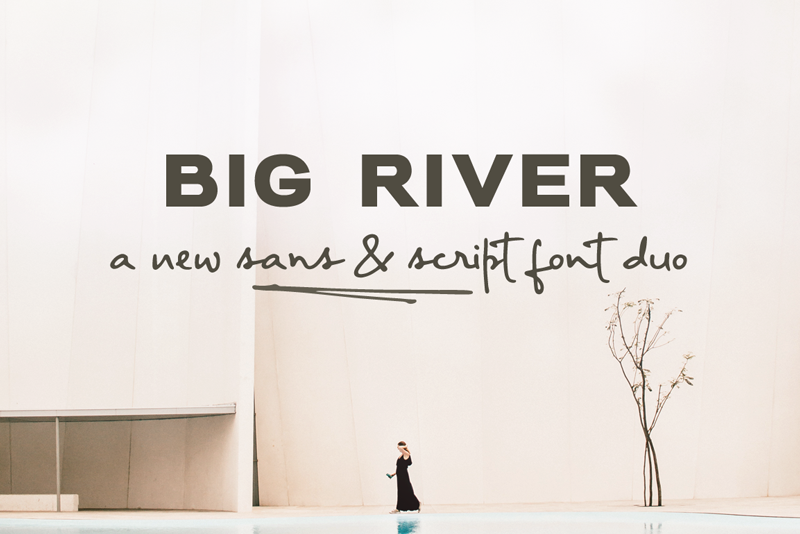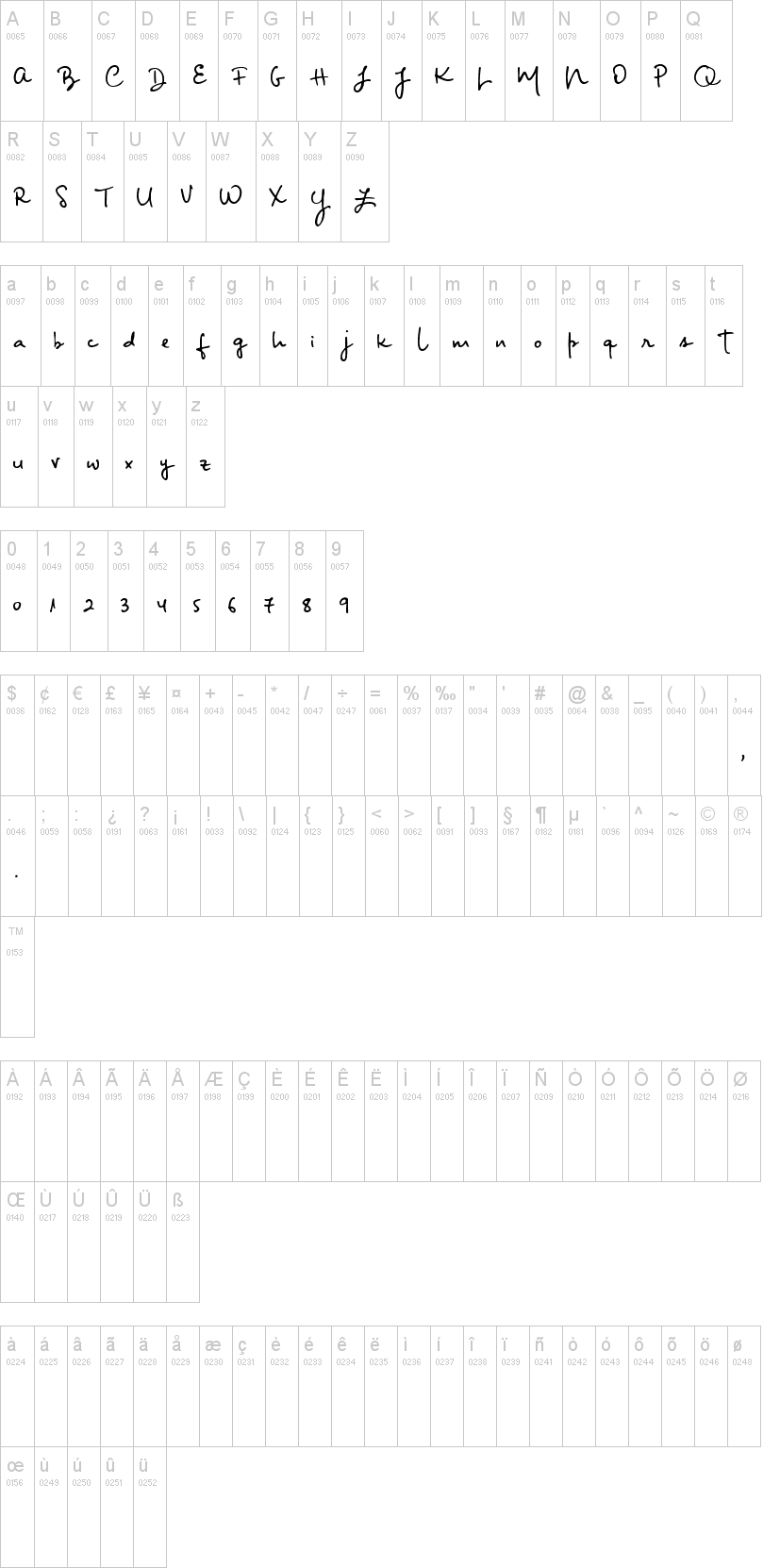
Note of the authorBig River is an elegant sans serif and handwritten font duo with lots of extras. It includes:
- A wide sans serif font in three weights (with caps and small caps);
- A handwritten font with a regular and slant version, and bonus swashes to give your designs a more natural look.
Each font includes:
- A-Z, a-z, 0-9, accents, punctuation and symbols
- Contextual alternates (script)
- Ligatures (script)